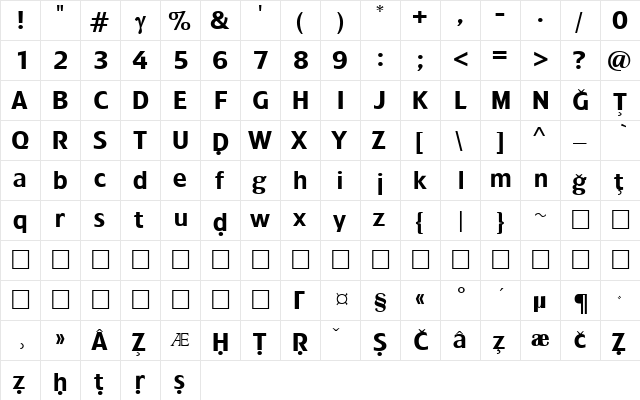
Amazigh Treacyfaces Medium Font Preview
Amazigh Treacyfaces Medium
Design Context for Amazigh Treacyfaces Typeface
Amazigh Treacyfaces takes a measured approach to typography — its balanced proportions and neutral character make it a reliable workhorse for both digital and print work.
Pro Tip: Use Amazigh Treacyfaces in both headline and body roles to test its range before committing to a single application.